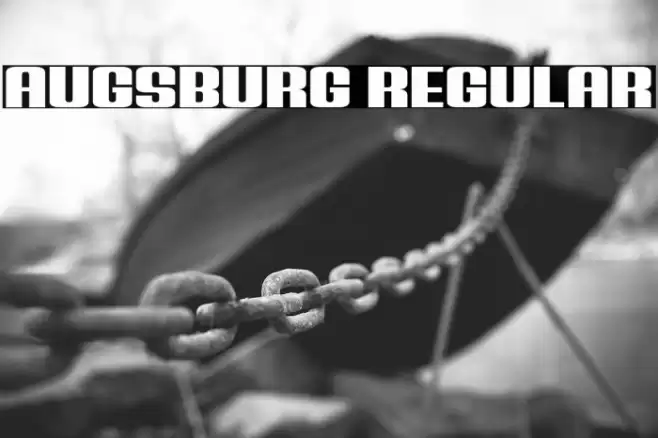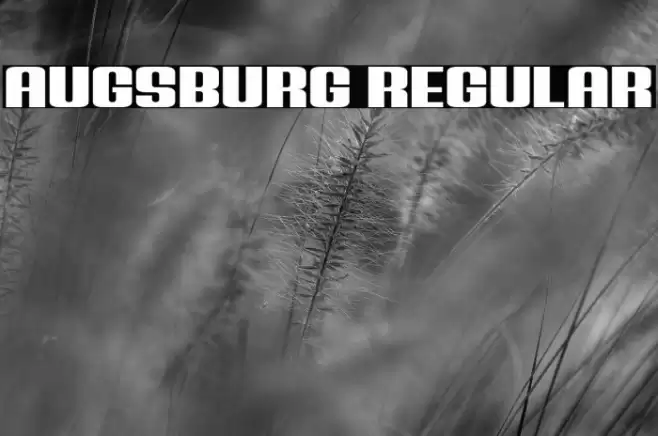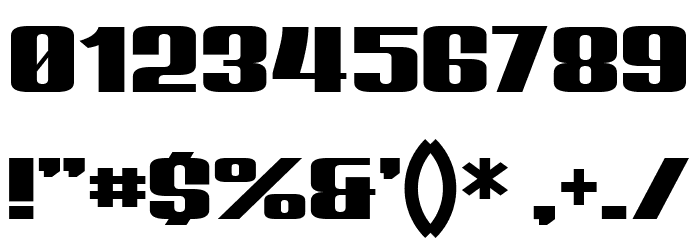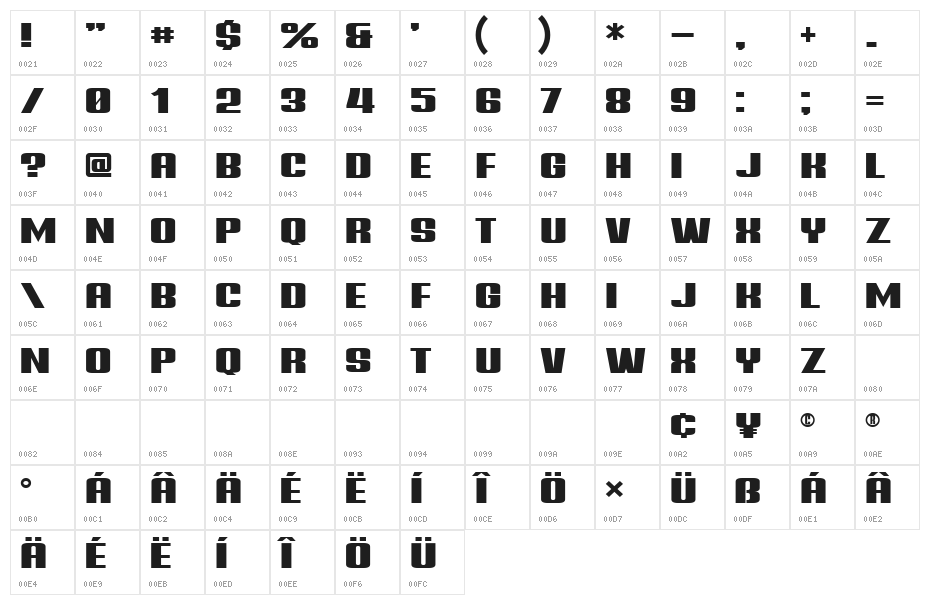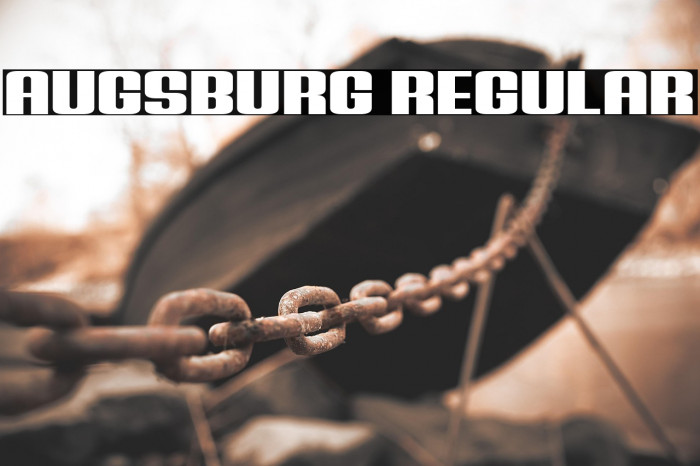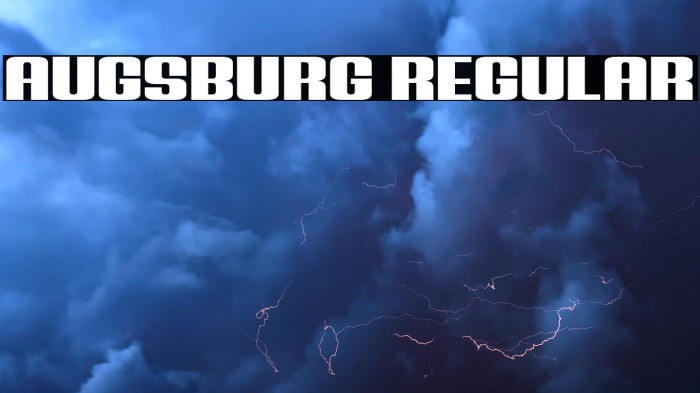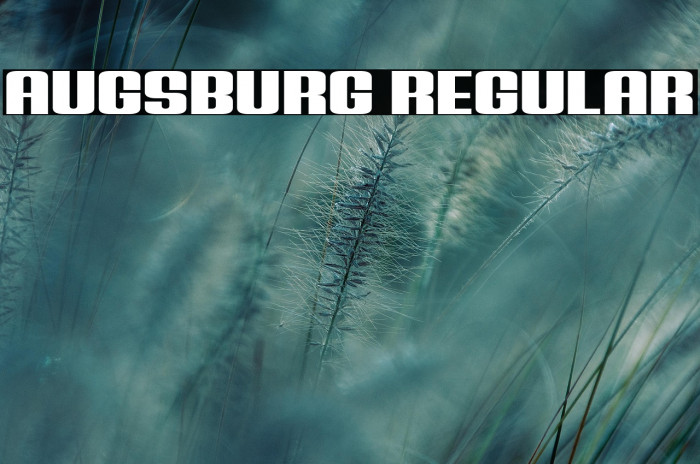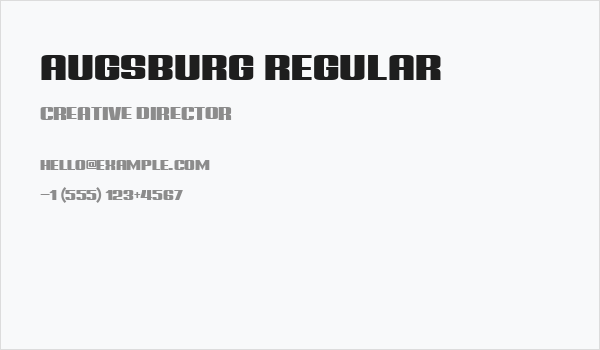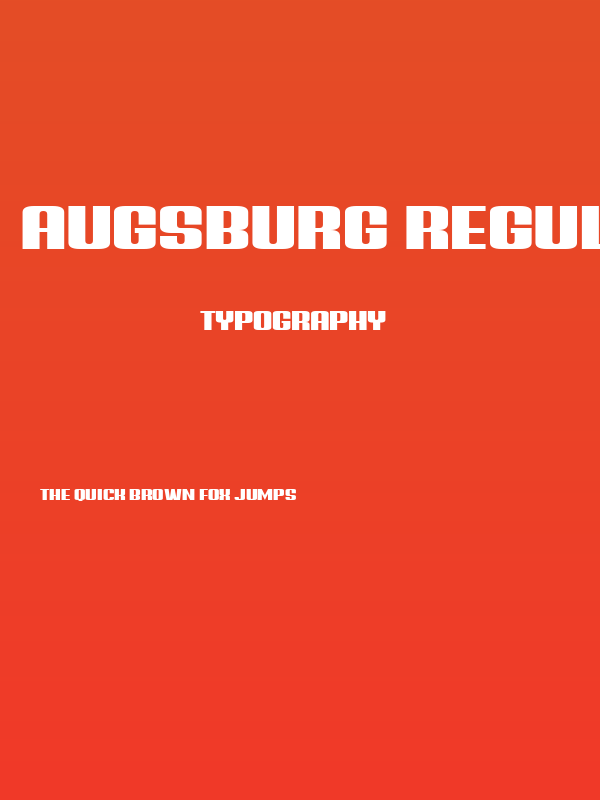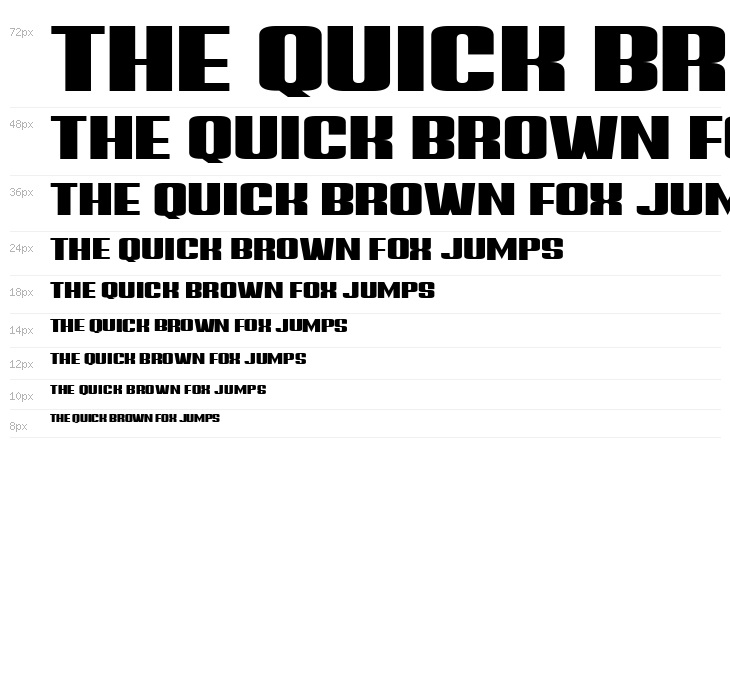
Augsburg Regular Font
Augsburg Regular Description
This font exhibits a bold and impactful style with thick, block-like characters that convey strength and stability. The uppercase letters are uniformly wide, creating a sense of uniformity and balance. The numbers and special characters maintain the same boldness, ensuring consistency across all elements. The design is straightforward, with minimal embellishments, making it suitable for attention-grabbing headlines or titles. The overall appearance is modern and assertive, ideal for projects that require a strong visual presence.
A bold, modern font with thick, block-like characters for impactful design from Uncategorized fonts.
- Proposed Projects: Ideal for headlines, posters, branding materials, and any design requiring a strong visual impact.